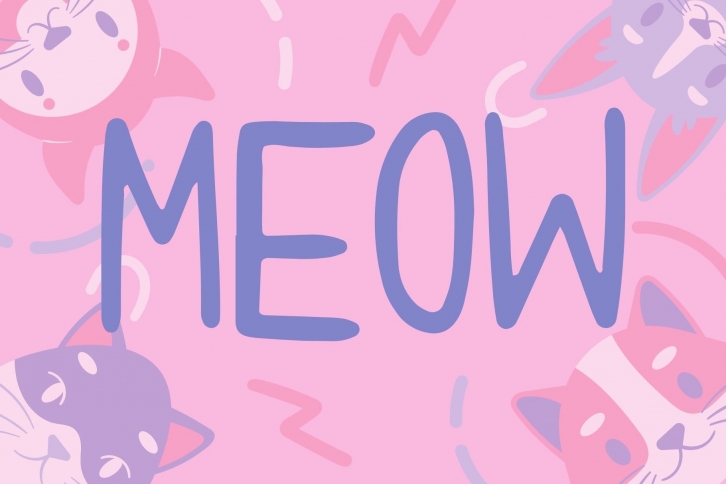
Meow is a cute and jolly display font. It is suitable for logotype, headline font, in corporate identity, brand identity, apparel industry, poster, music, movie, game, magazine, book, comic, cartoon, YouTube, Instagram, website, or any of your creative design projects.